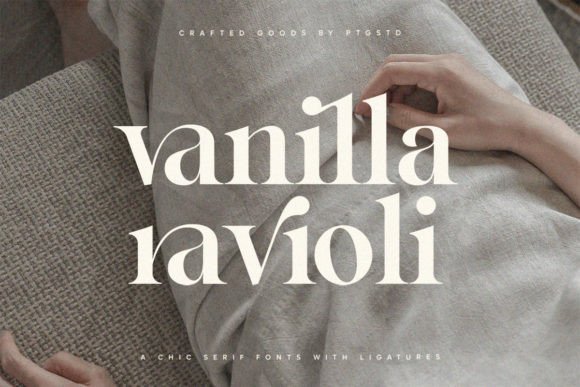
Introducing Vanilla Ravioli Font, the perfect addition to your design toolbox! Created by Pentagonistudio, this sophisticated and charming serif font boasts a fashionable touch that sets it apart from the rest. With its luxurious and elegant style, Vanilla Ravioli Font is specially designed for feminine projects that require a modern and chic design.
Whether you're looking to create stunning visuals for your brand or add a touch of elegance to your personal project, Vanilla Ravioli Font is the perfect choice. Its versatility and eye-catching appeal make it the best font for poem in Canva. With this font, you can easily convey a message of sophistication, beauty, and grace.
Vanilla Ravioli Font is perfect for all sorts of design projects, from elegant wedding invitations to sophisticated branding for high-end businesses. The font family has a variety of weights, which means you can use it for various purposes, including headlines, titles, and body text.
What sets Vanilla Ravioli Font apart is its unique character and charm. It is a font that oozes sophistication and luxury, perfect for creating designs that leave a lasting impression. This font is perfect for any project that requires a touch of elegance, class, and beauty.
In summary, Vanilla Ravioli Font is the perfect choice for anyone looking to elevate their design game. Its versatility and sophistication make it the best font for poem in Canva, and its unique character and charm will add a touch of luxury and elegance to any project. So why wait? Download Vanilla Ravioli Font today and start creating designs that are sure to impress!